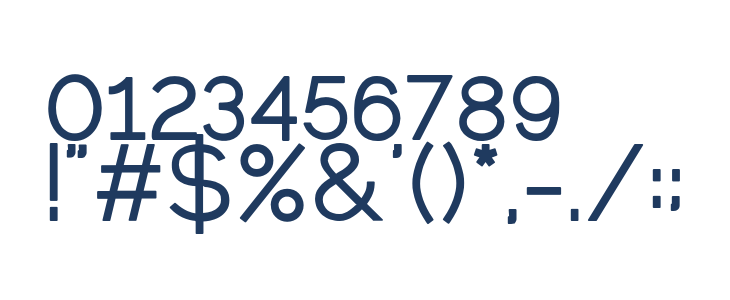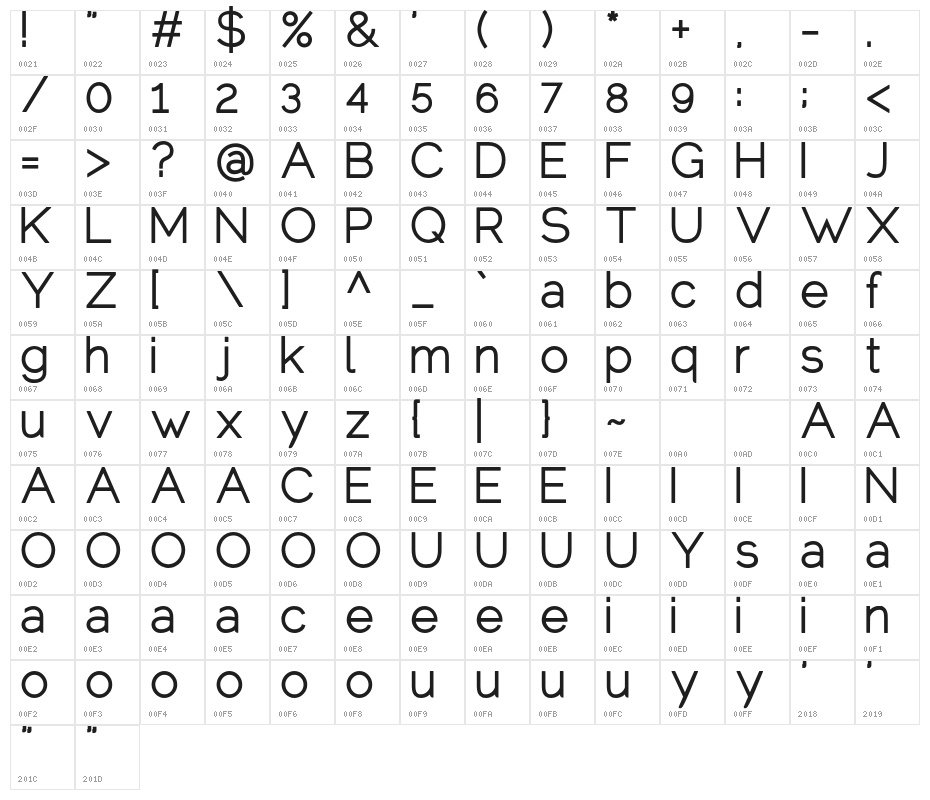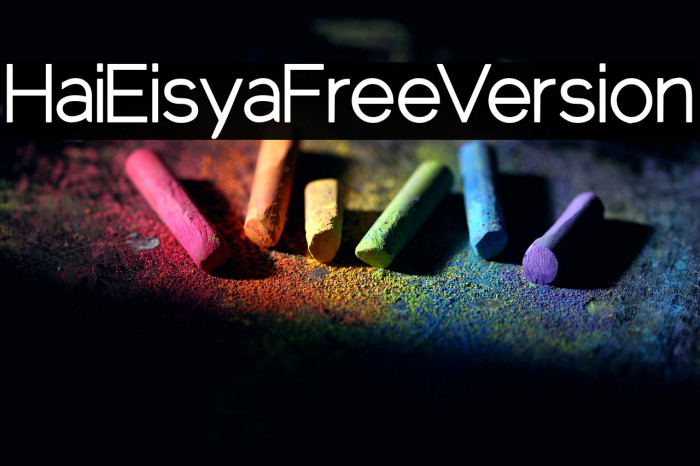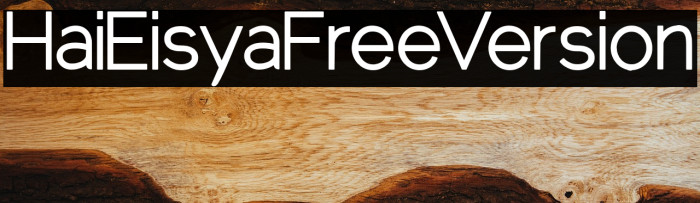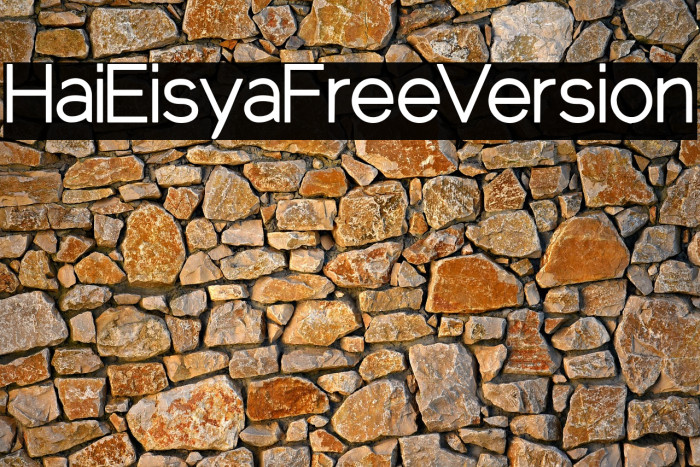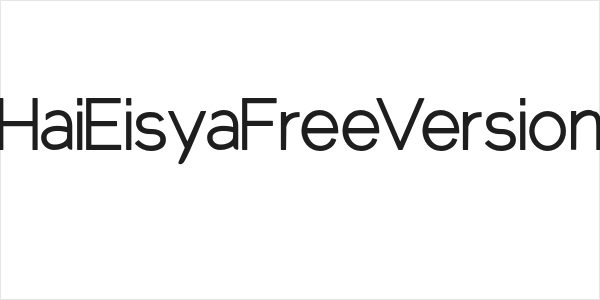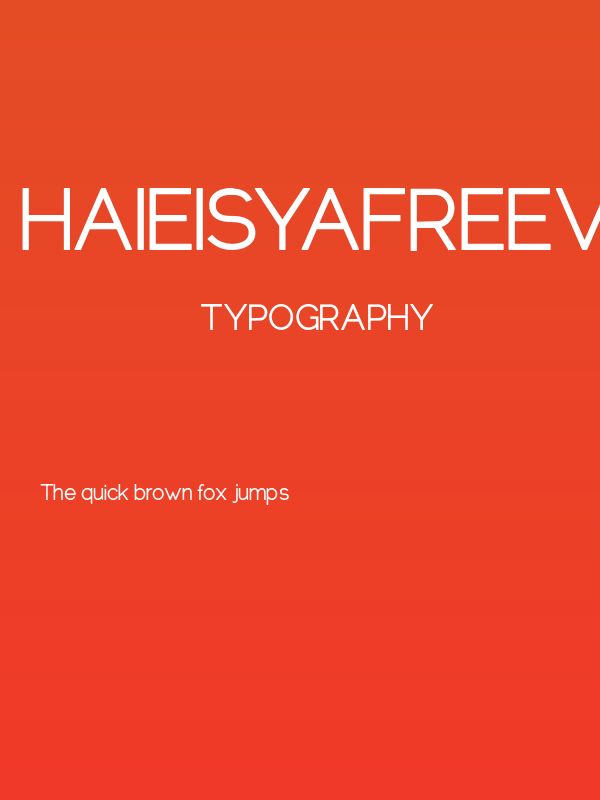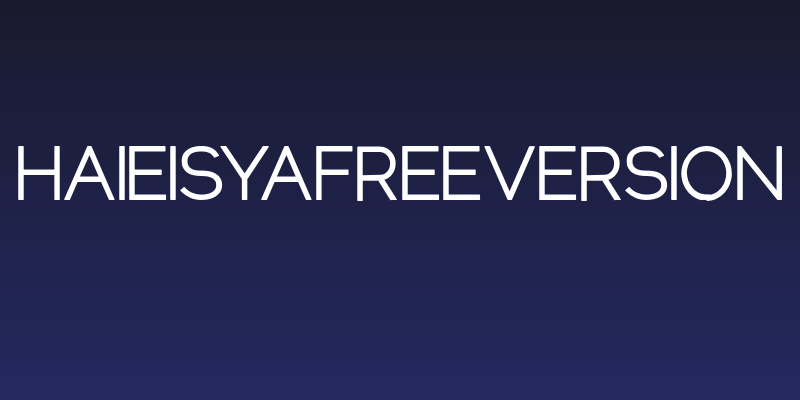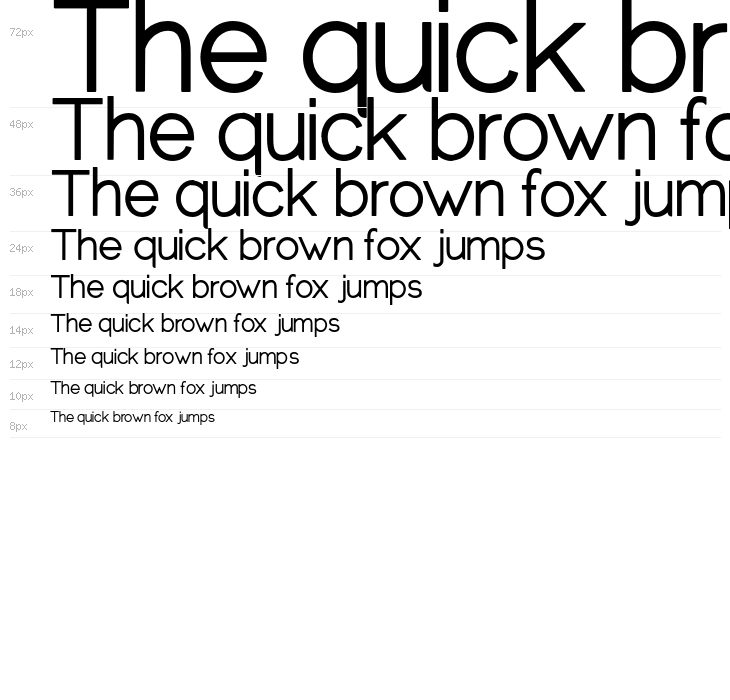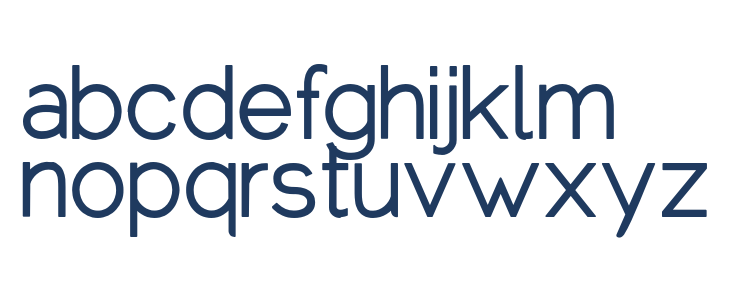
HaiEisyaFreeVersion Font
HaiEisyaFreeVersion Description
This font features a clean and modern sans-serif design, characterized by its geometric shapes and uniform stroke widths. The uppercase letters are bold and striking, with a consistent height that gives a balanced appearance. The lowercase letters maintain a similar geometric structure, offering a harmonious flow between characters. The numerals are clear and easily distinguishable, making them suitable for various applications. Special characters are well-integrated, maintaining the overall aesthetic of the font. The design is versatile, suitable for both digital and print media, and can be used effectively in a variety of contexts.